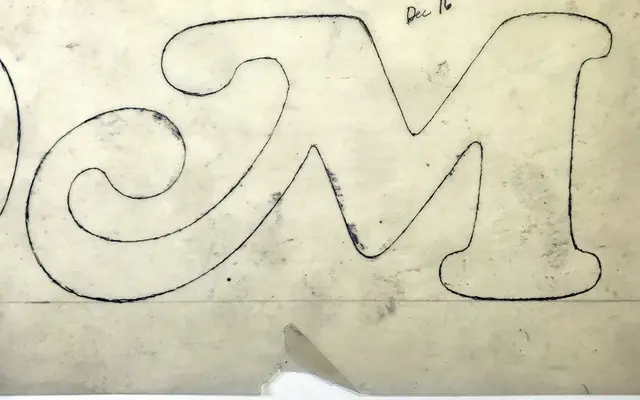
New Kansas Italic & Swashes
New Kansas Italic & Swashes specimen from Newlyn
Italic, swash and extra-swash companions to New Kansas, bringing decorative flourish to a Cooper Black-derived family across seven weights.
Three sub-families — Italic, Swash and ExtraSwash — extend New Kansas into ornamental territory, each running from Thin to Black. The swash cuts introduce calligraphic flourishes on key characters, drawing on Oswald Cooper's original swash drawings, with the ExtraSwash variant pushing those details further for headline and display use. All three share the family's rounded, approachable construction, keeping the decorative variants grounded rather than overwrought.
Derived from Cooper Black's rounded, warm display serif tradition, New Kansas Italic & Swashes extends the family with decorative swash and extra-swash variants suited to expressive, display-oriented use.